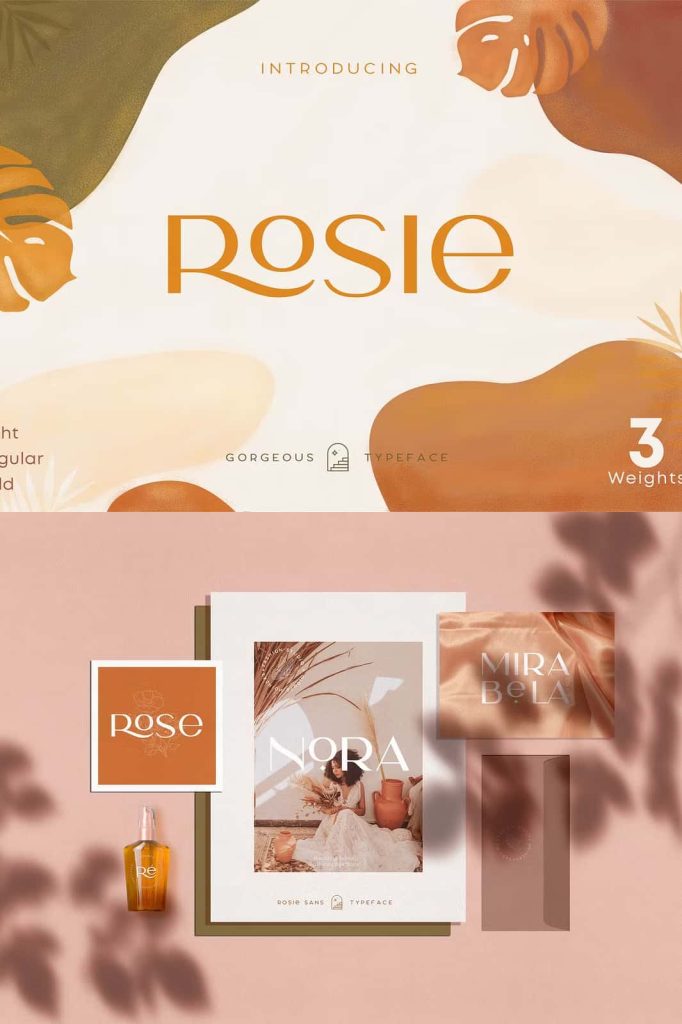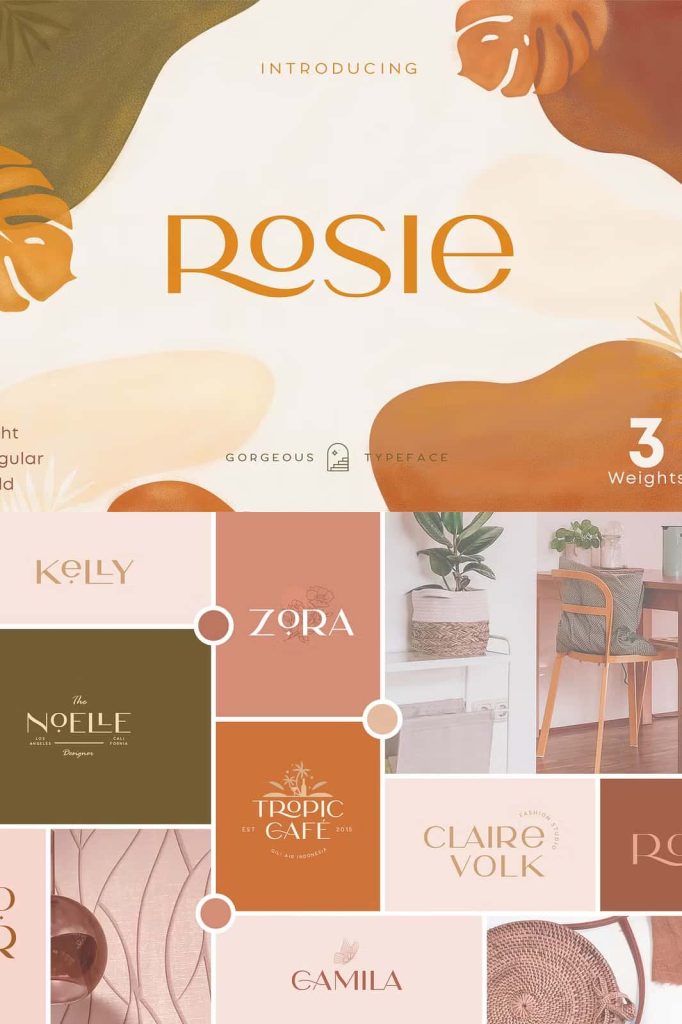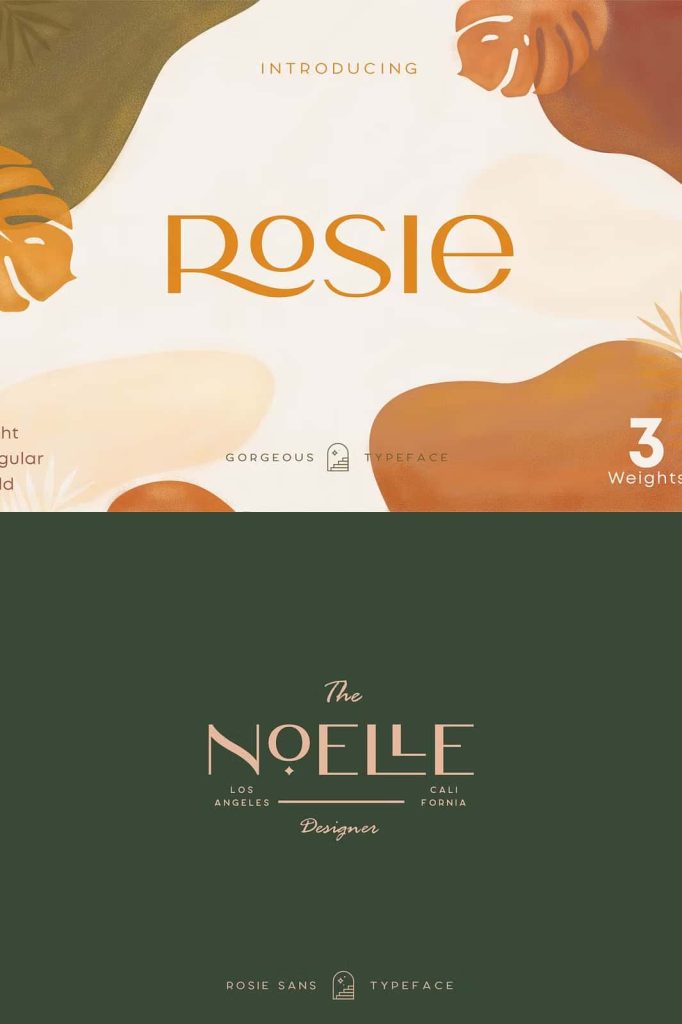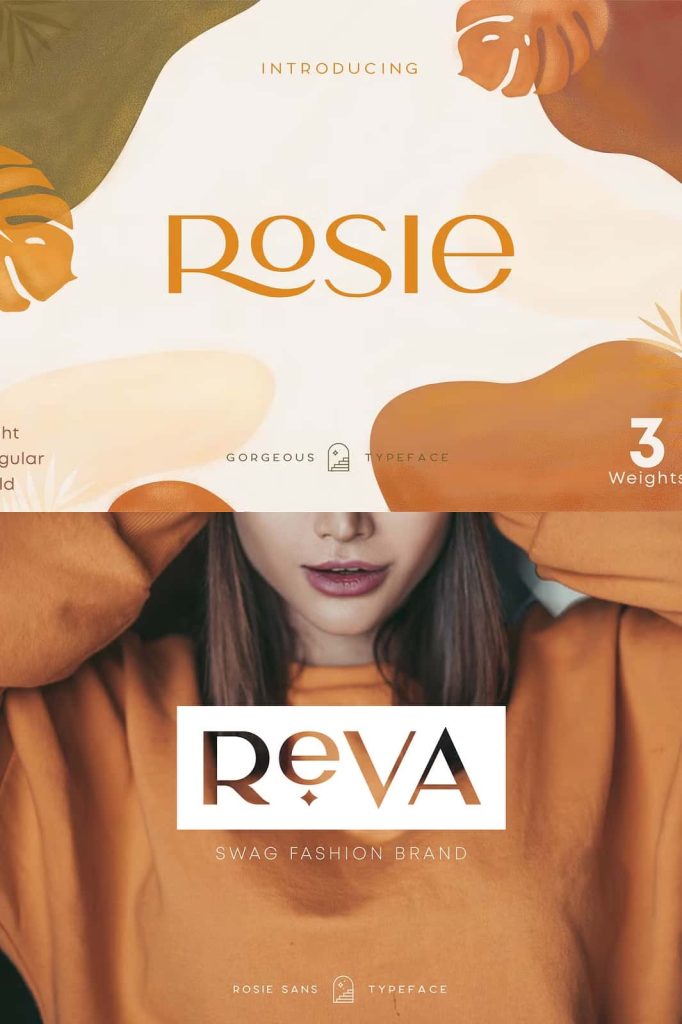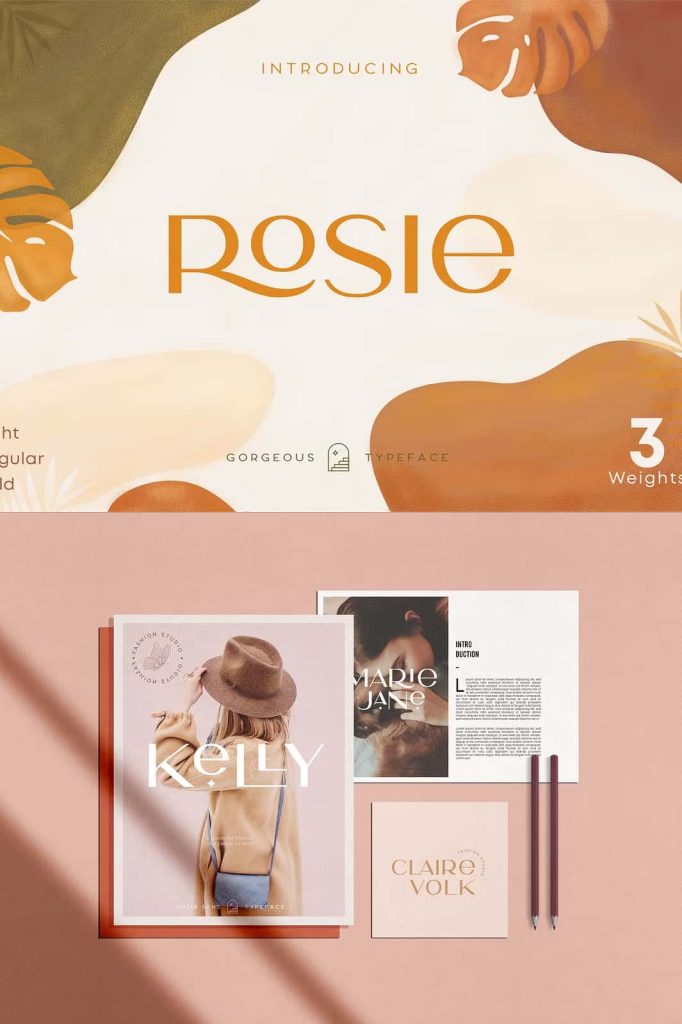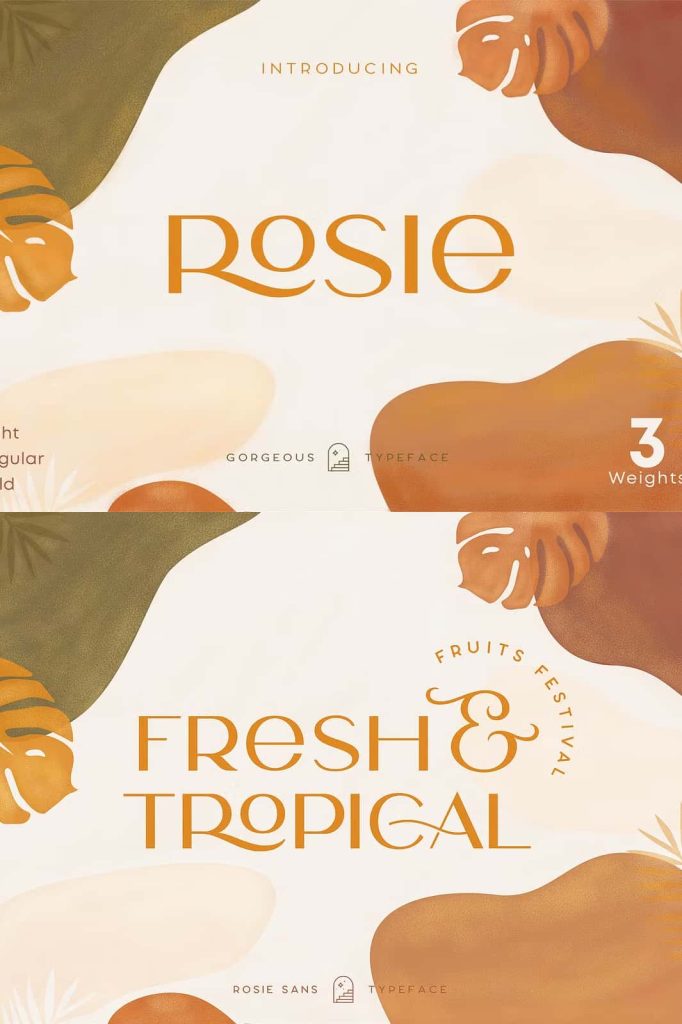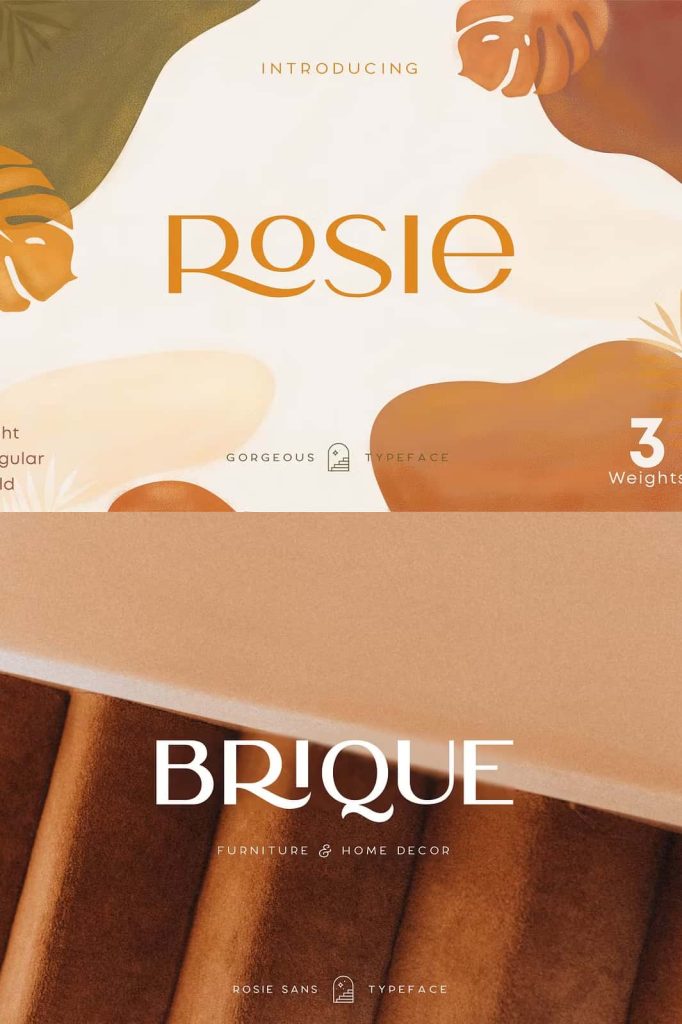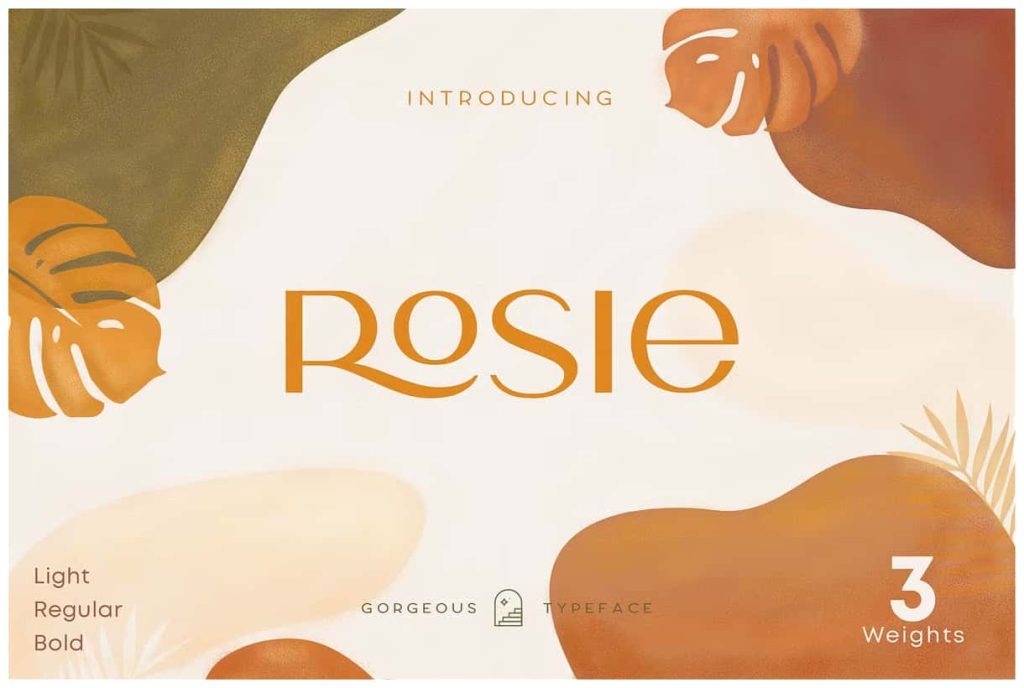
Rosie Sans – Gorgeous TypefaceleastedMay 21, 2025Fonts Introducing Rosie Sans – A Gorgeous modern sans serif with ton of stylistic alternates to choose. Download